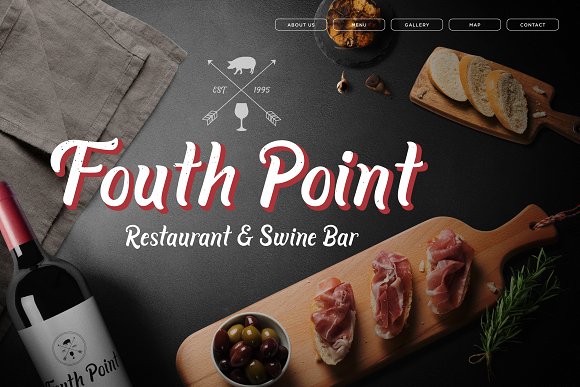
The reason Jackson Harbor Handdrawn Typeface is genuinely exciting is its undeniable warmth and authentic, imperfect character. It beautifully captures the look of genuine, casual handwriting done with care, offering a tactile and human element that machine-made fonts simply can’t replicate. Its slightly uneven edges and playful baseline create an immediate sense of familiarity and trust, making your brand feel approachable and down-to-earth. This font is a fantastic solution for designers looking to inject a personal, handcrafted touch and avoid overly polished digital aesthetics.
The Jackson Harbor Handdrawn Typeface family often provides several useful variations to enhance its versatility, typically including a Regular or Primary style, a Bold weight for emphasis, and sometimes an all-caps or outline version. Many versions also include a delightful set of stylistic alternates and doodles or catchwords to truly maximize the customizable, hand-drawn effect. To add a delightful touch of human charm to your next project, grab the Jackson Harbor Handdrawn Typeface Free Download now and start creating!